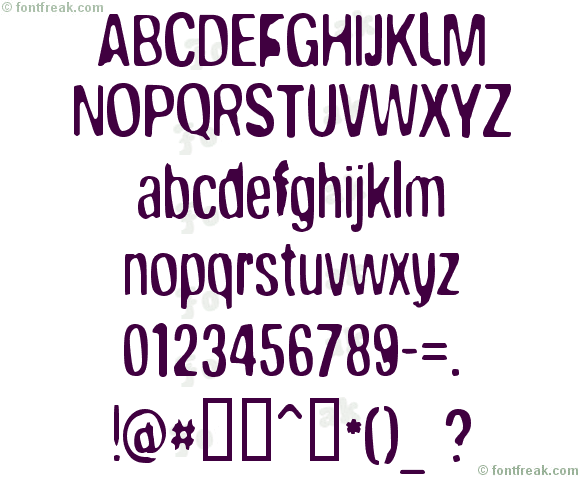
Broken Wing
About Broken Wing
The Broken Wing font by Channelzero! is a striking display typeface that captures attention with its unique, irregular style. Released in 1996 and designed by Andi Jones, this freeware font boasts a playful yet edgy aesthetic, making it an excellent choice for various creative projects. The font features a bold stroke weight with a casual, hand-drawn quality that adds personality to any design. The uneven spacing and irregular letterforms create an organic feel, while the decorative elements give it a whimsical touch that sets it apart from conventional typefaces.
This font is ideal for use in a range of applications, including eye-catching movie posters, vibrant event flyers, and dynamic branding for creative businesses. It works particularly well for children’s products, where a fun and approachable style is essential, as well as for social media graphics that aim to engage and captivate audiences. Graphic designers looking to infuse their projects with character will find the Broken Wing font free download an invaluable resource.
Small business owners can also benefit from this font when designing marketing materials or signs that require a distinct and memorable look. Content creators seeking to enhance their visual storytelling will find that the Broken Wing font adds an element of charm and creativity to their written content.
What truly makes the Broken Wing font stand out is its ability to convey a sense of fun and approachability without sacrificing style. It strikes a balance between playful and professional, making it versatile enough to suit a variety of contexts. Whether you are creating artwork for print or digital media, this font is sure to leave a lasting impression.